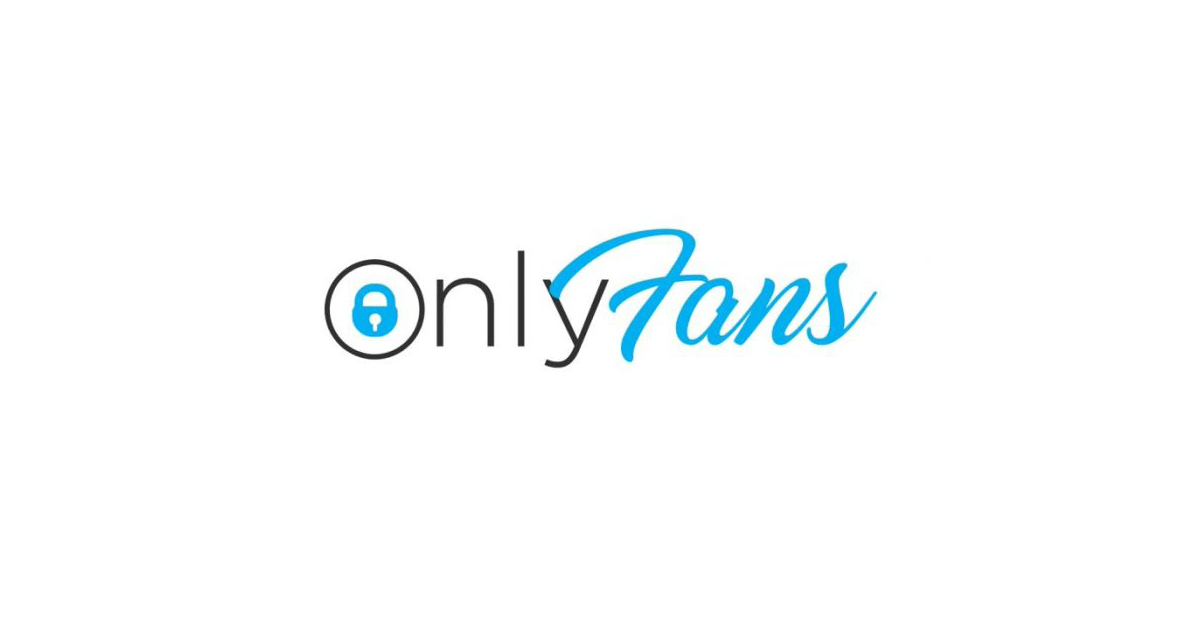
The Best Onlyfans Logo Fonts References. Web onlyfans logo png vectors. Over 1,300 free fonts are also supported for all.
Font generator ( ͡° ͜ʖ ͡°) designers; Community logos > onlyfans logo make your own! Author (gotham lite & marguerite fonts) this.
Can anyone make a only gold. Web i've been trying all day to make one that says oaklee farms to look like the onlyfans logo for our t shirts 🤣. Note this is not the formal logo, but a variant with only text.
Web onlyfans logo square meme generator the fastest meme generator on the planet. Numquam tu non modo otium,. Its left side (“only”) looks very concise, thanks to a simple.
The Main Graphic Symbol Of Onlyfans Is An Inscription That Combines Several Styles.